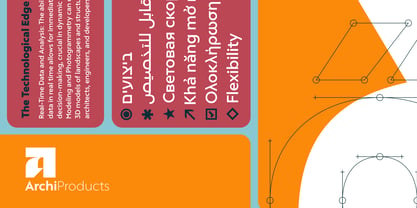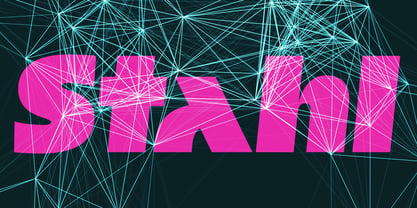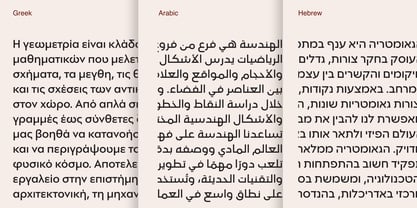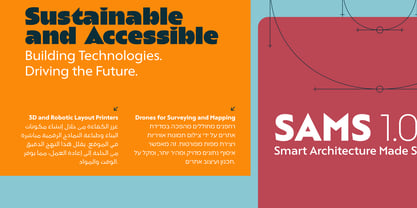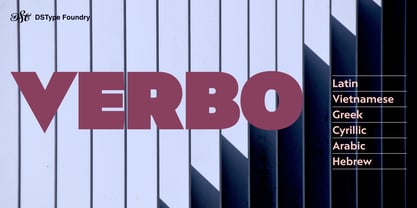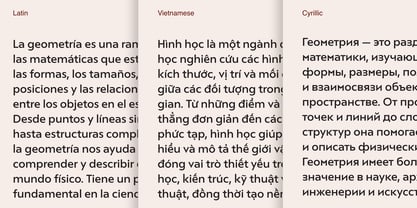
Verbo
by DSType
The Verbo Font Family was designed by Dino dos Santos and published by DSType. Verbo contains 66 styles and family package options. More about this family
Verbo presents a refreshing fusion of pure geometry and subtle warmth, reinterpreting the disciplined precision of Bauhaus typefaces through a humanist lens. With its slightly angled terminals and Art Deco-inspired architectural elements, Verbo balances modernity and timeless elegance. This versatile and multiscript type family is tailor-made for corporate design, signage, and packaging, delivering both sophistication and readability. Available in Extended Latin, Greek, Cyrillic, Arabic and Hebrew. To fully harness the potential of the Verbo family, we created the bold and expressive Verbo XL. This striking display typeface features an exceptionally large x-height, ensuring maximum visual impact. Verbo XL introduces several alternate characters, drawing inspiration from a rich tapestry of historical styles, including blackletter, uncial, and geometric forms. This seamless blending of diverse influences results in a typeface that feels innovative and familiar, perfect for projects that demand attention and artistic flair.
Designers: Dino dos Santos
Current Foundry: DSType